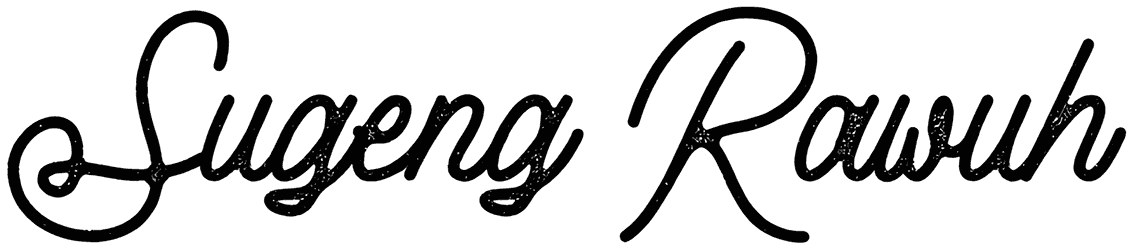
Sugeng Rawuh Font
The smooth and cursive characters of this handwritten font can adorn a party flyer layout or a restaurant sign with a neon visual and attract a lot of observers. The Sugeng Rawuh font has a realistic and modern style that can be matched with different designs. It’s nice, isn’t it? With a touch of your creativity, a simple idea can turn into a memorable masterpiece.